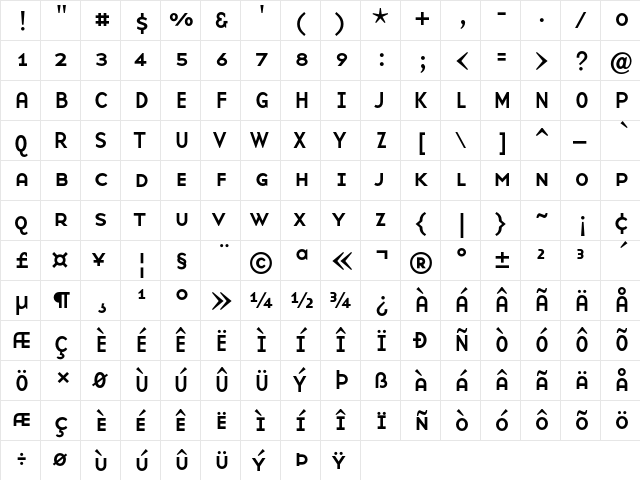
BaseNineSmallCaps Regular
Design Context for BaseNineSmallCaps Typeface
BaseNineSmallCaps takes a measured approach to typography — its balanced proportions and neutral character make it a reliable workhorse for both digital and print work.